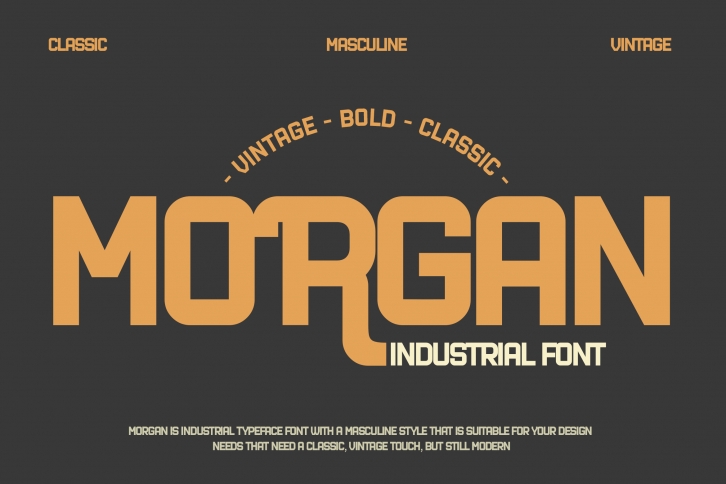
Morgan is a cool, bold and assertive display font. No matter the topic, this font will be an incredible asset to your fonts’ library, as it has the potential to elevate any creation.Â